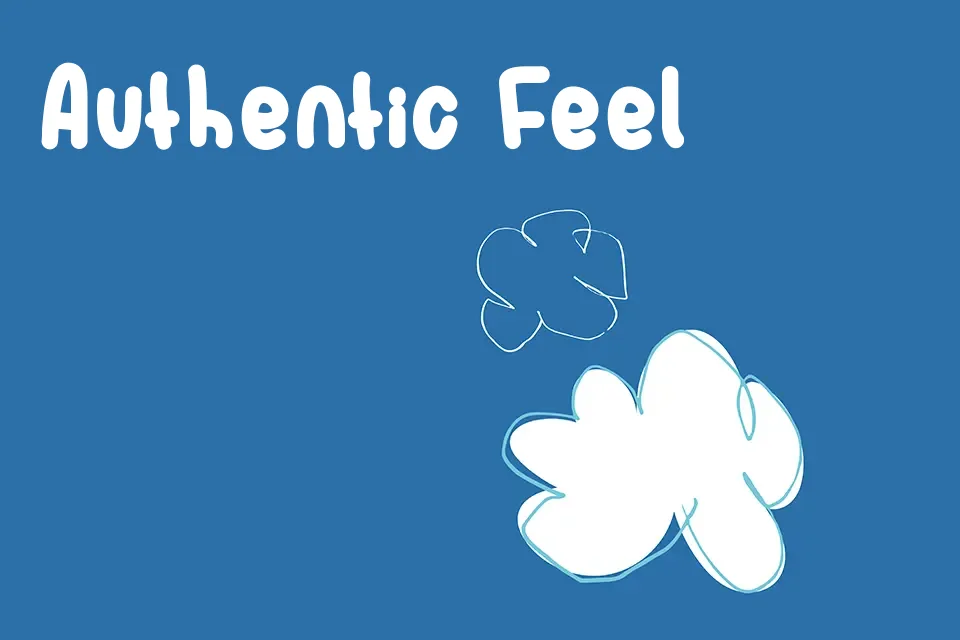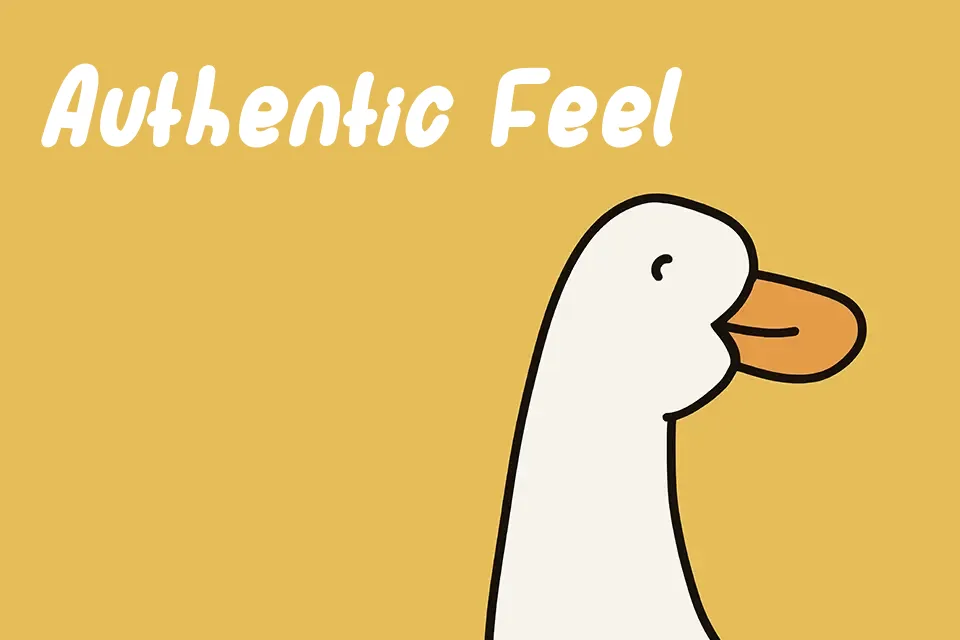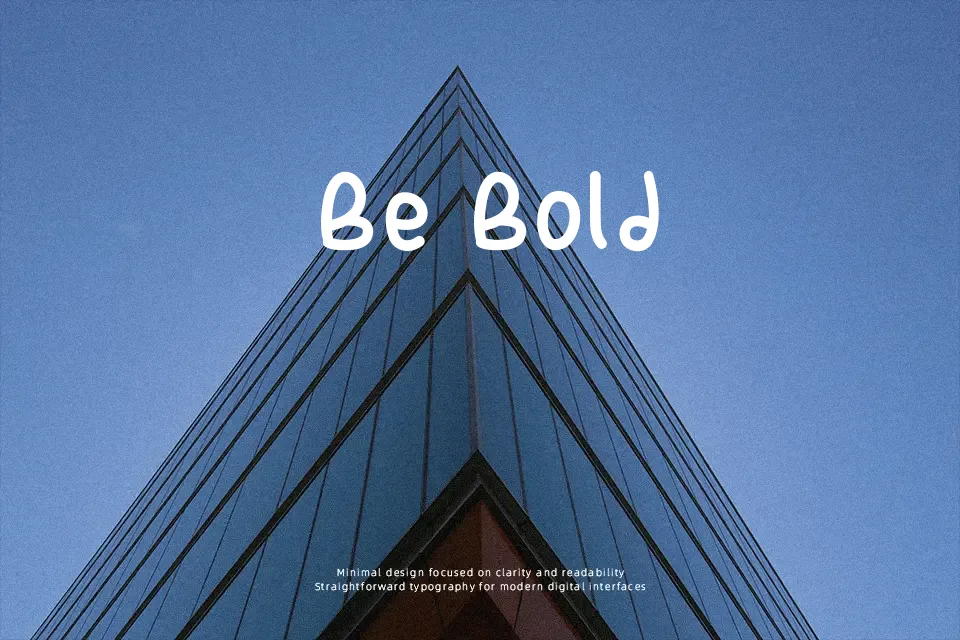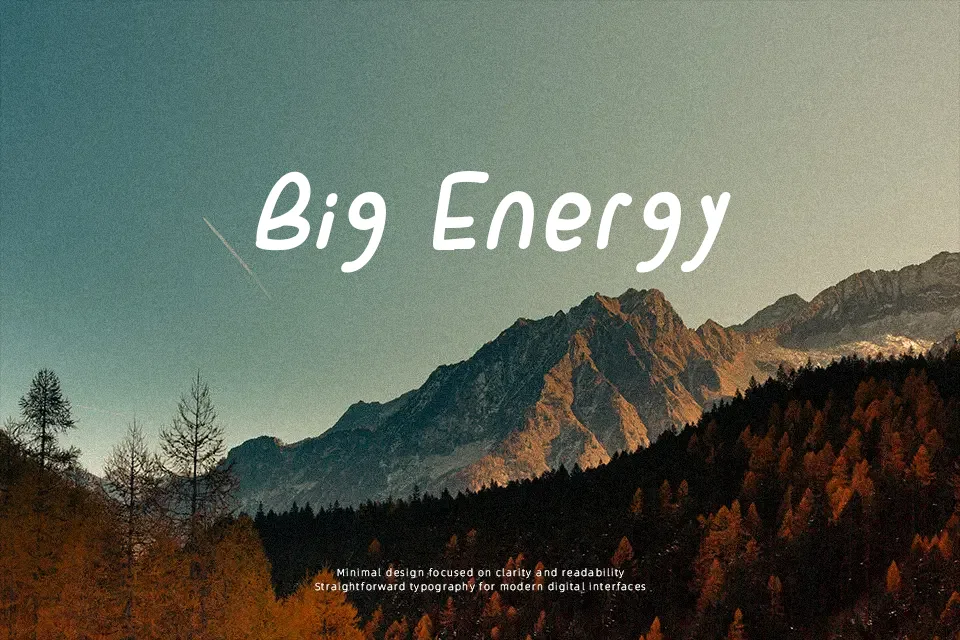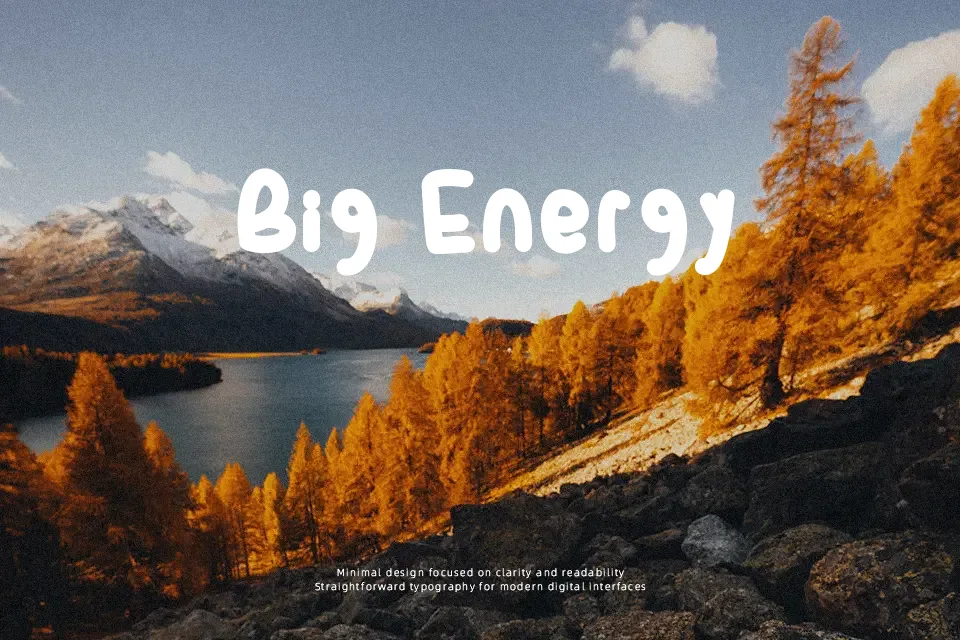
Spork Font
Spork Font delivers a casual, comic-inspired aesthetic characterized by hand-rendered strokes, relaxed curves, and uneven line weights. The letterforms exhibit asymmetrical proportions and open counter spaces, creating a lively rhythm across display settings. While character spacing remains balanced enough to maintain clear letter distinction in short headlines, the loose structural discipline reduces reading comfort in dense paragraphs. The typeface performs effectively in children’s book covers, animated video titles, and casual branding where an informal mood is desired. However, delicate details and irregular forms quickly lose clarity in small captions or extended text blocks.
Best For: children’s book covers, animated video titles, comic book lettering, casual merchandise graphics
Not Ideal For: continuous body text, corporate documentation, financial spreadsheets, mobile navigation menus
Perfect for headline, kids, and poster, with a creative and comic style.